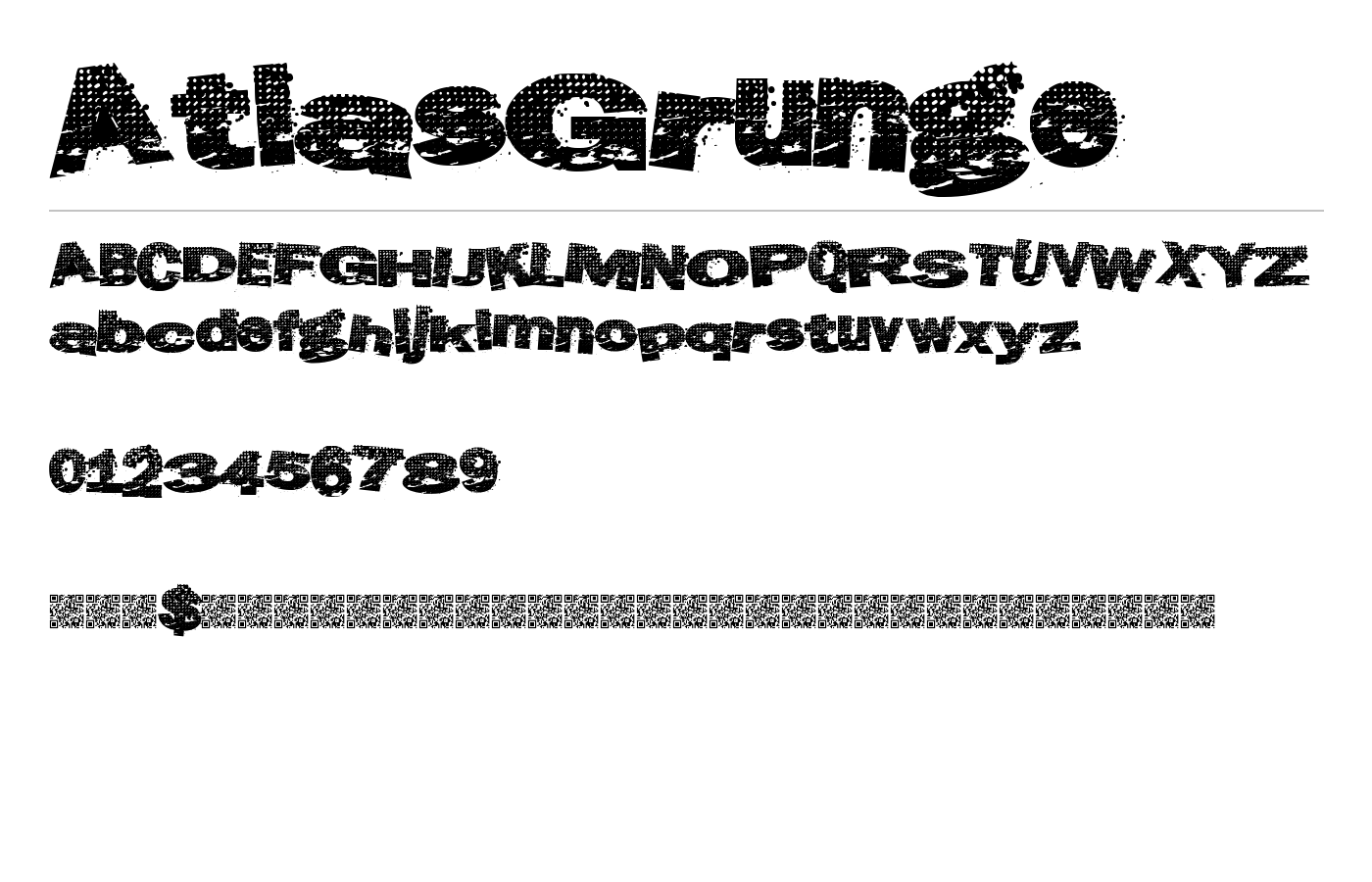
AtlasGrunge is a bold, distressed sans serif font characterized by its textured, weathered appearance that gives a rough, vintage feel. Its wide stance and uneven, broken strokes create a dynamic, grunge-inspired look ideal for designs needing an edgy, rebellious vibe. This font works well for posters, logos, and creative projects where a strong, impactful style with a raw, urban personality is desired.
AtlasGrunge Font
About AtlasGrunge Font